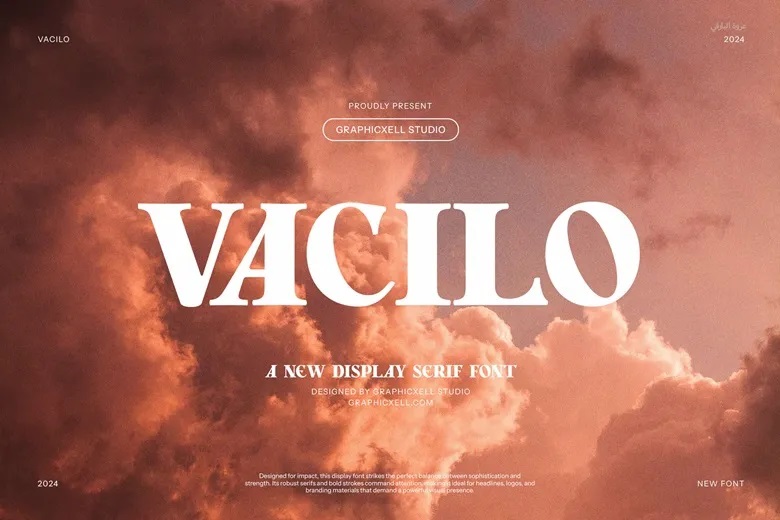
Vacilo Font
Vacilo is a new contemporary serif font that provides sophistication at the contemporary world. It is not only stylish but it looks pleasant as well.. What makes it interesting is that there are some curves that are better to observe, giving the kind of elegant appearance. The classy ligature also turns into one of its decorative features and selling points.
Looking more and more calligraphic, this font has a modern vibe. As such, it is suitable for different designs, beauty designs, elegant crafting, layout designs, ad branding, design templates, etc.
Vacilo Serif Font